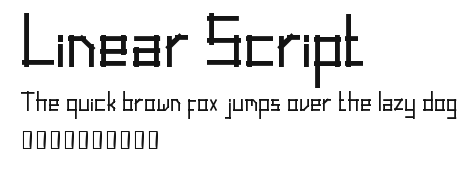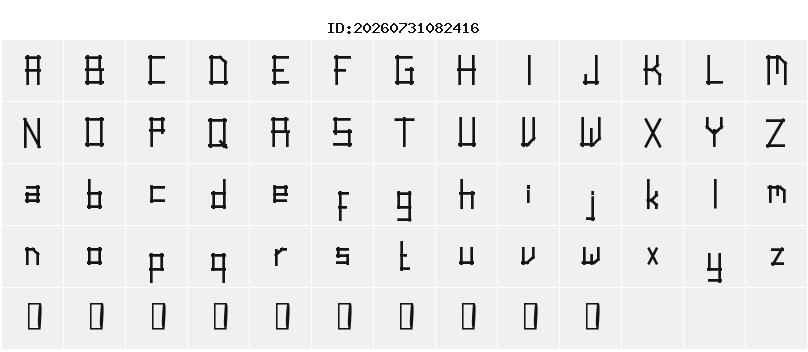
Linear Script Preview
• Font Name: Linear Script
• Full Font Name: Linear Script
About Linear Script.ttf
Linear Script.ttf is a modern, elegant sans-serif font designed for ultimate readability and visual harmony. Perfect for branding, headlines, web design, and print materials.